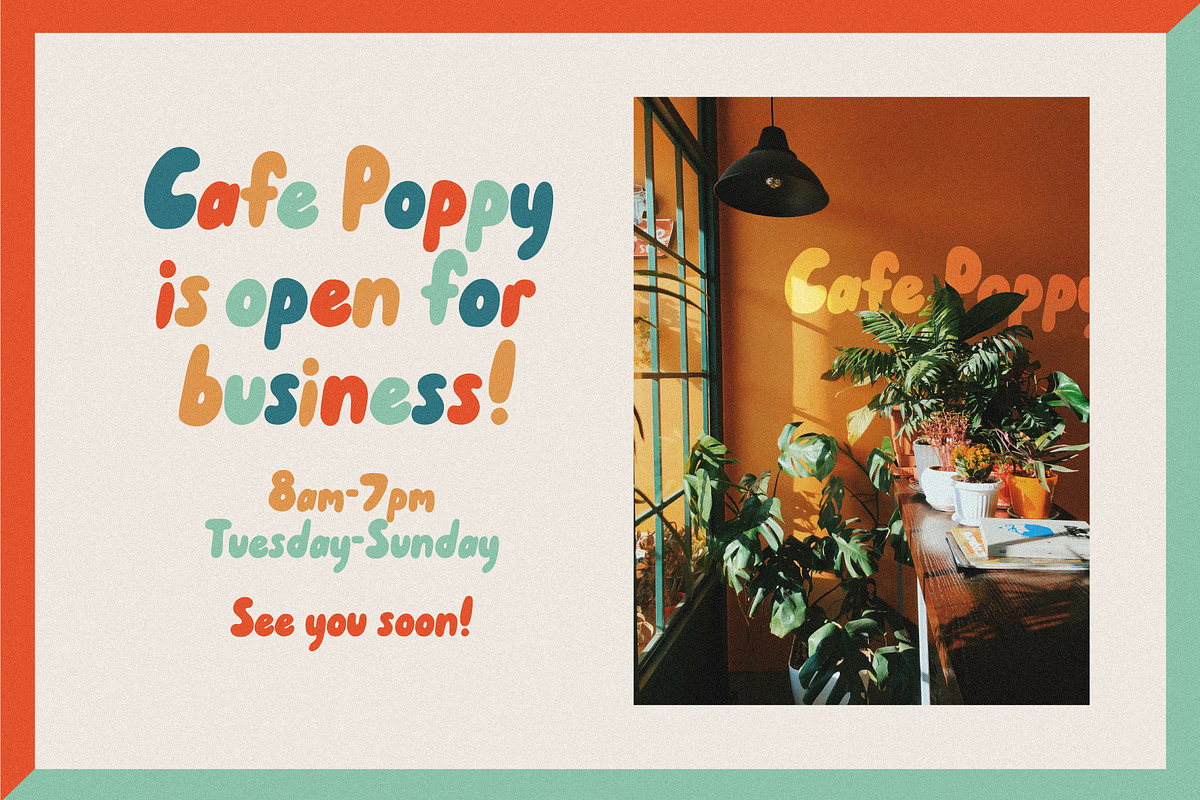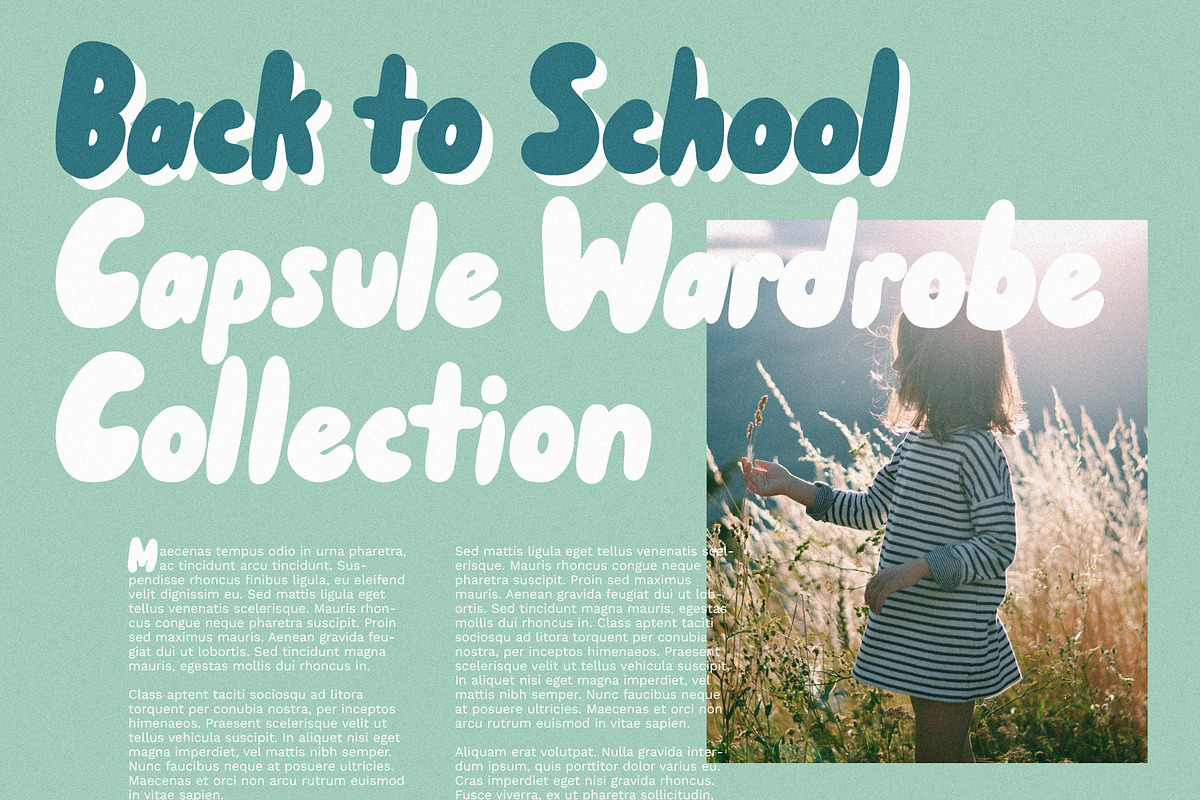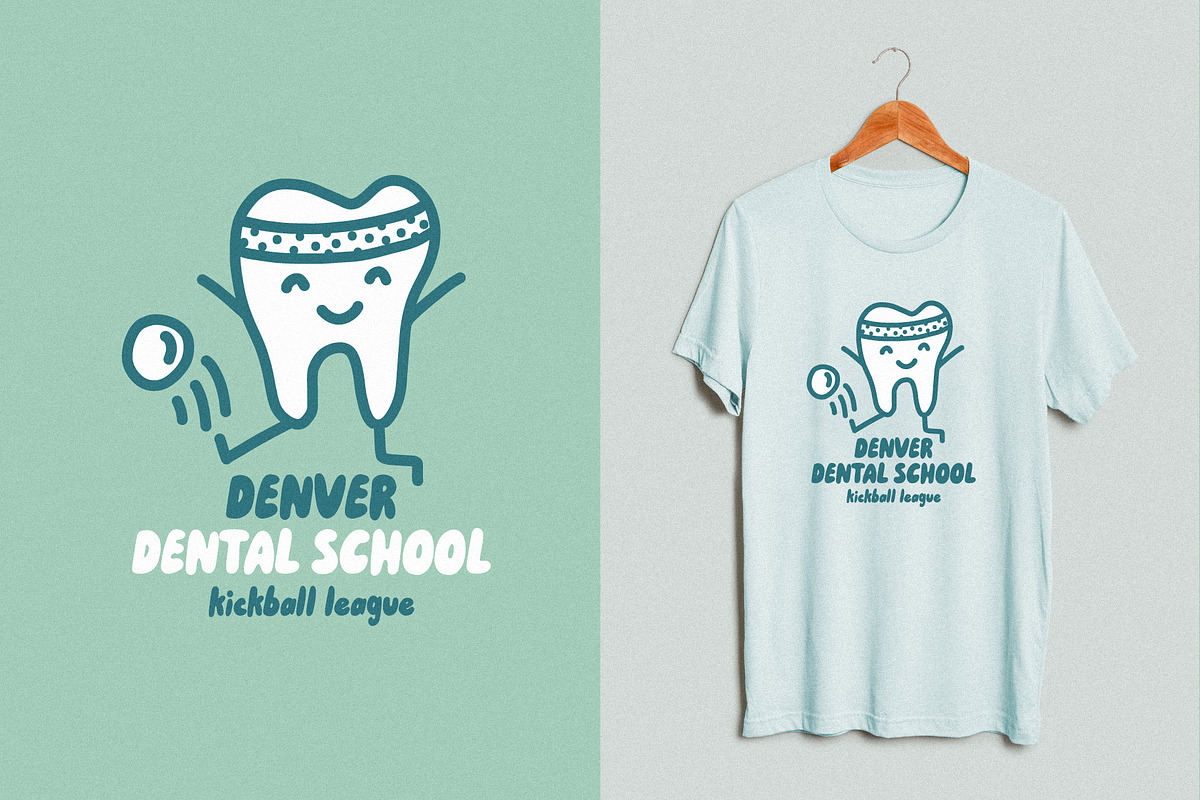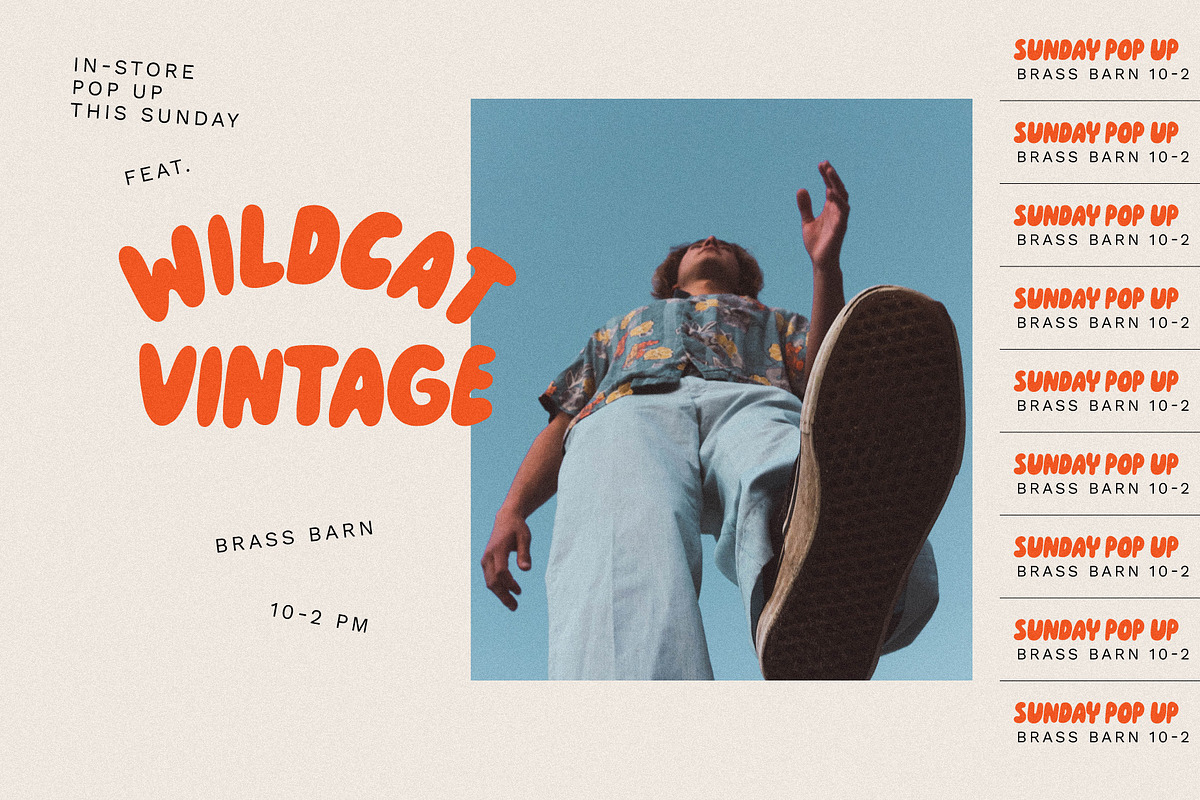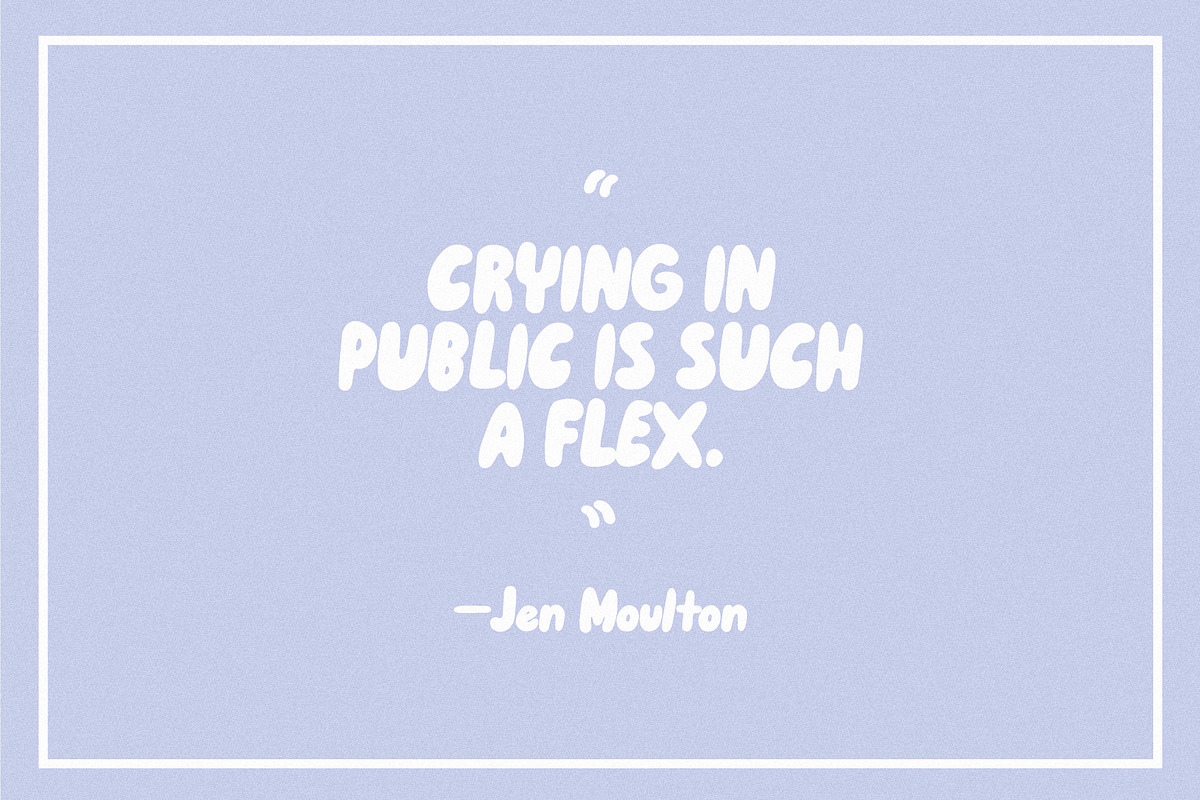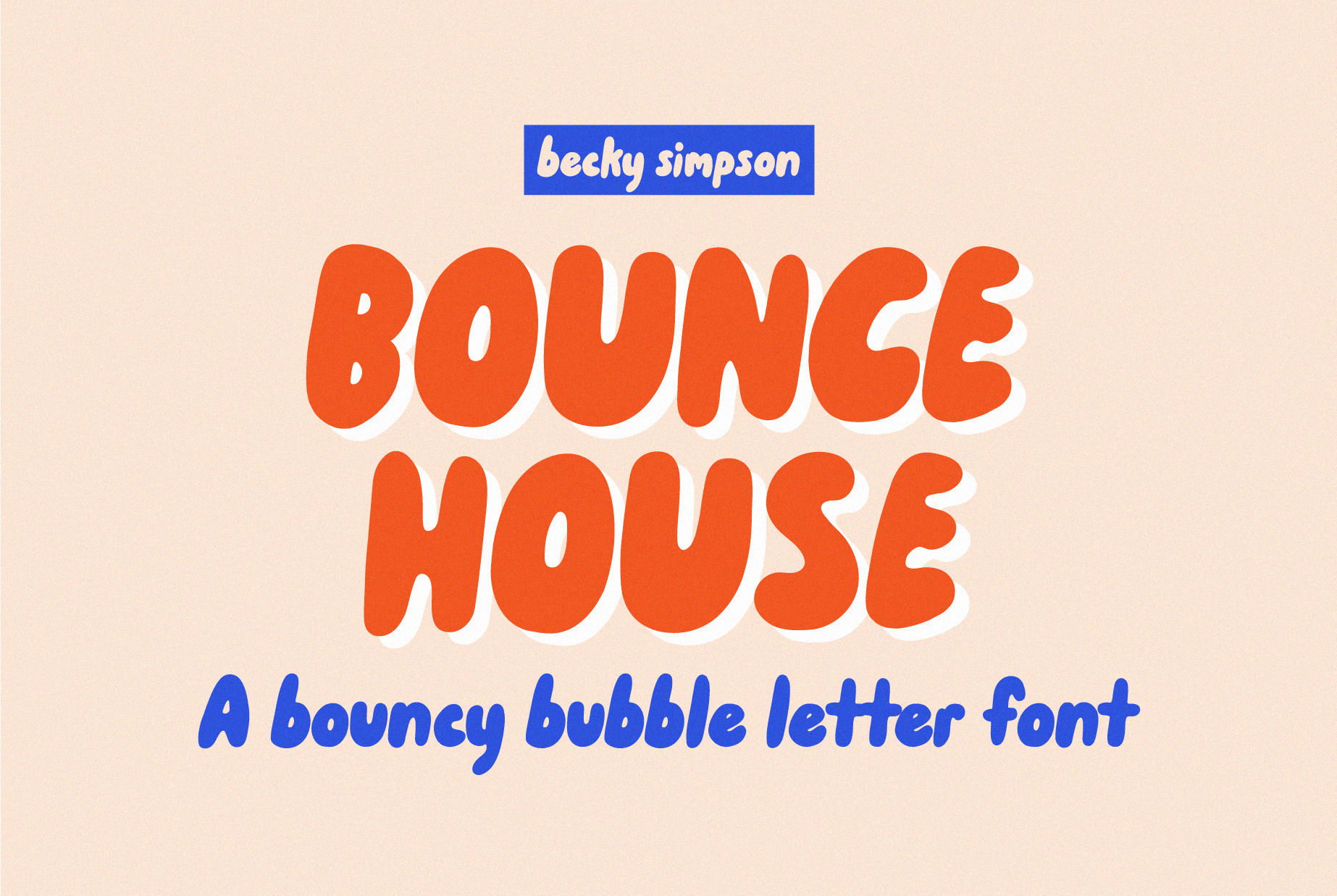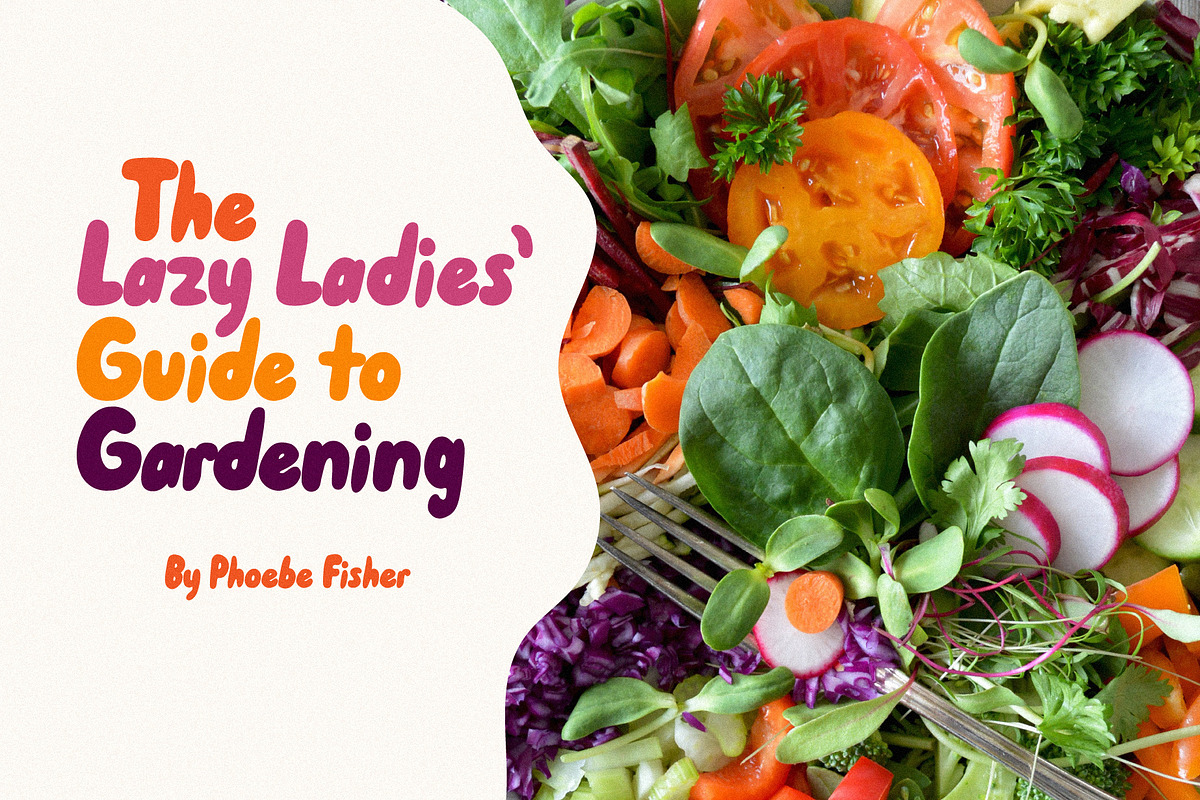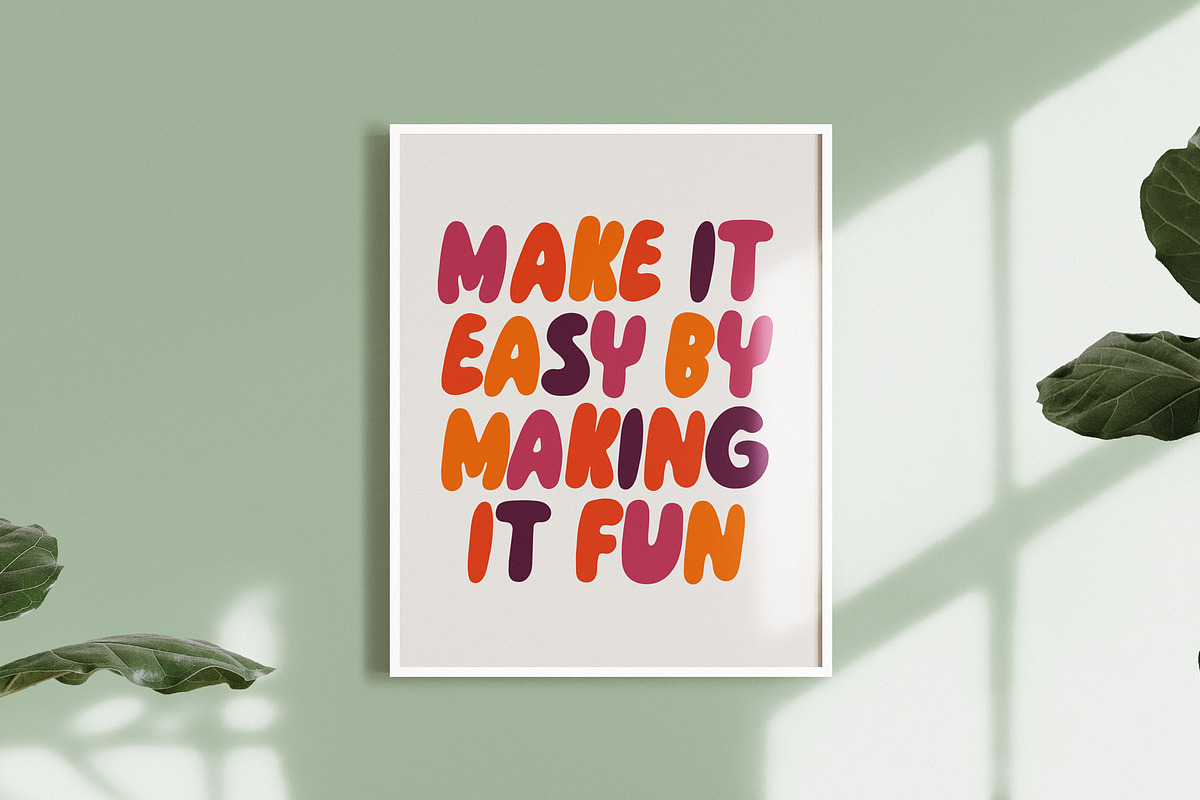
Bounce House • Bubble Letter font
Bounce House is a fun, bubble letter font. It's hand-lettered with lots of love and made for the young at heart. Highly recommended for headers, swag, show posters, album art, Instagram promotions and quotes, art prints, logos, book covers, games, patterns and more!
Styling tips:
- Play with all upper or all lowercase (or stick with title casing!)
- Try drop shadows (like the cover image) or making different letters different colors
- Play with scale and spacing